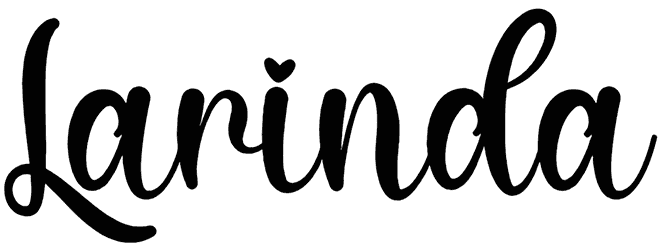
Larinda Font
Larinda looks very simple at first glance, but its decorative swirls and heart-shaped elements can make it suitable for various celebrations and occasions. This handwritten font has an intimate look with a cheerful atmosphere that can blend into any informal background and leave a lasting impression.